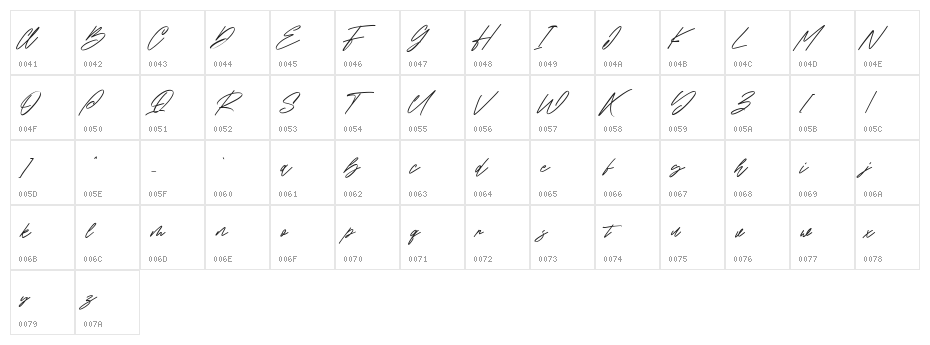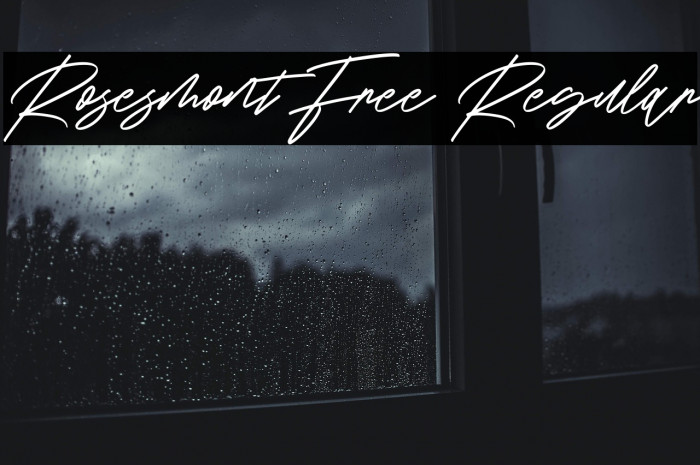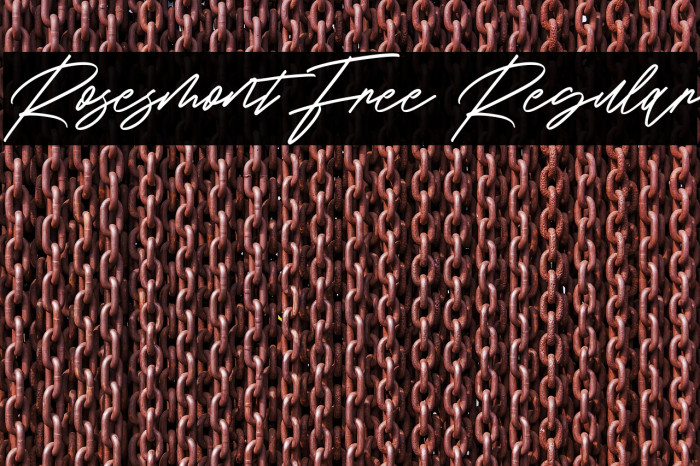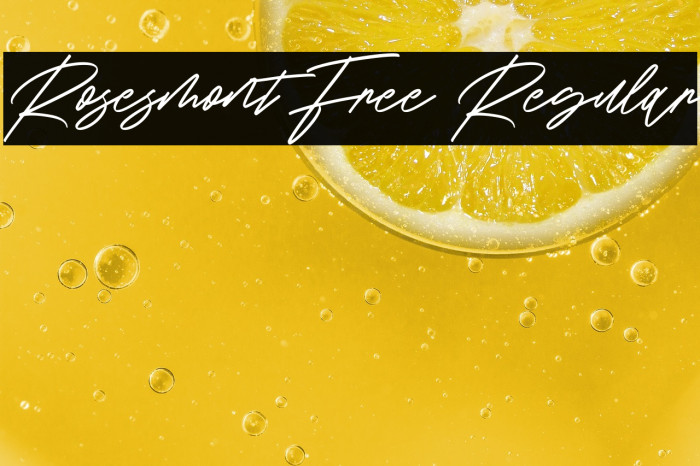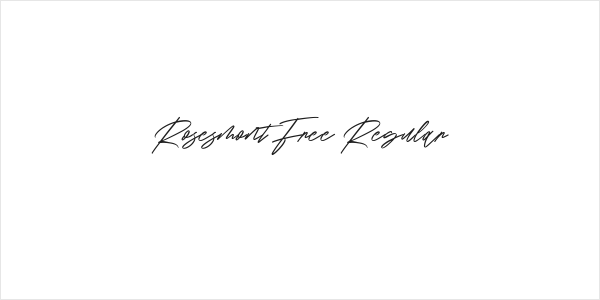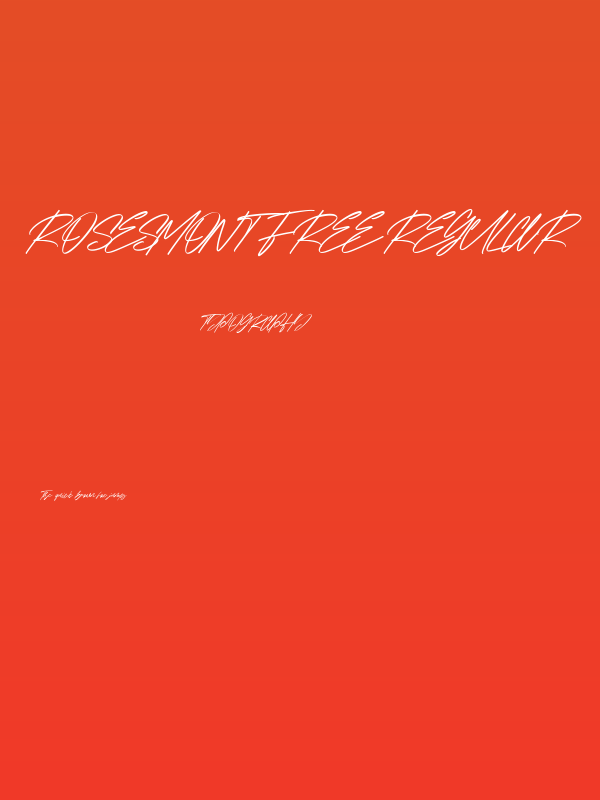
Rosesmont Free Regular Font
Rosesmont Free Regular Description
This font features a dynamic and fluid script style, characterized by its elegant, flowing lines and cursive letterforms. The strokes are smooth and connected, giving it a handwritten appearance that is both sophisticated and approachable. The uppercase letters are bold and prominent, while the lowercase letters maintain a consistent flow, enhancing readability. The overall design is modern yet timeless, making it suitable for a variety of creative applications. The font's unique style captures attention and adds a personal touch to any project.